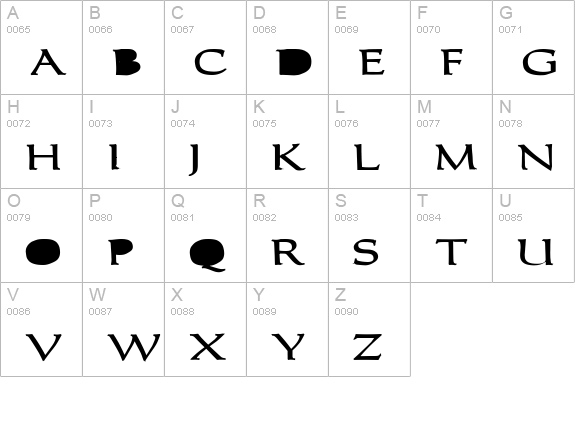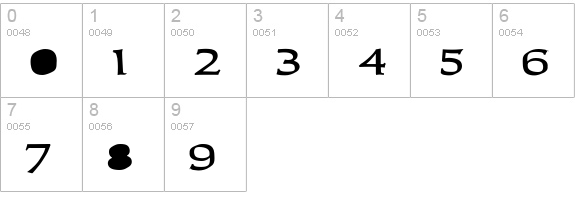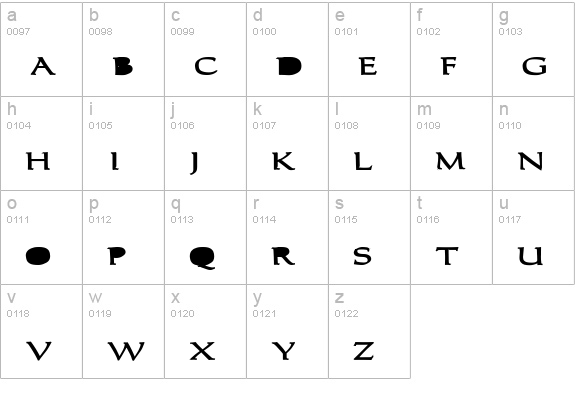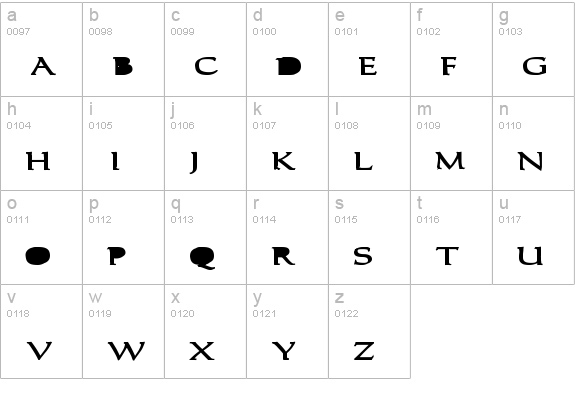
Caracub-Bold Font Details
Caracub-Bold is a strong, high-contrast variant in the Caracub typeface family \xE2\x80\x94 well suited to headlines, attention-grabbing titles, and strong calls-to-action.
Caracub-Bold is a modern and stylish display font that exudes confidence and strength. With its bold and striking appearance, Caracub-Bold is perfect for making a statement in any design project. Its clean lines and sharp edges give it a contemporary look that is sure to capture attention. This font is versatile and can be used for various purposes, such as headlines, logos, branding, posters, and more. Whether you're looking to create a bold and impactful design or add a touch of sophistication to your project, Caracub-Bold is the perfect choice. Best of all, Caracub-Bold is available for free download at FontsMarket.com. So why wait? Add this stunning font to your collection today and take your designs to the next level!